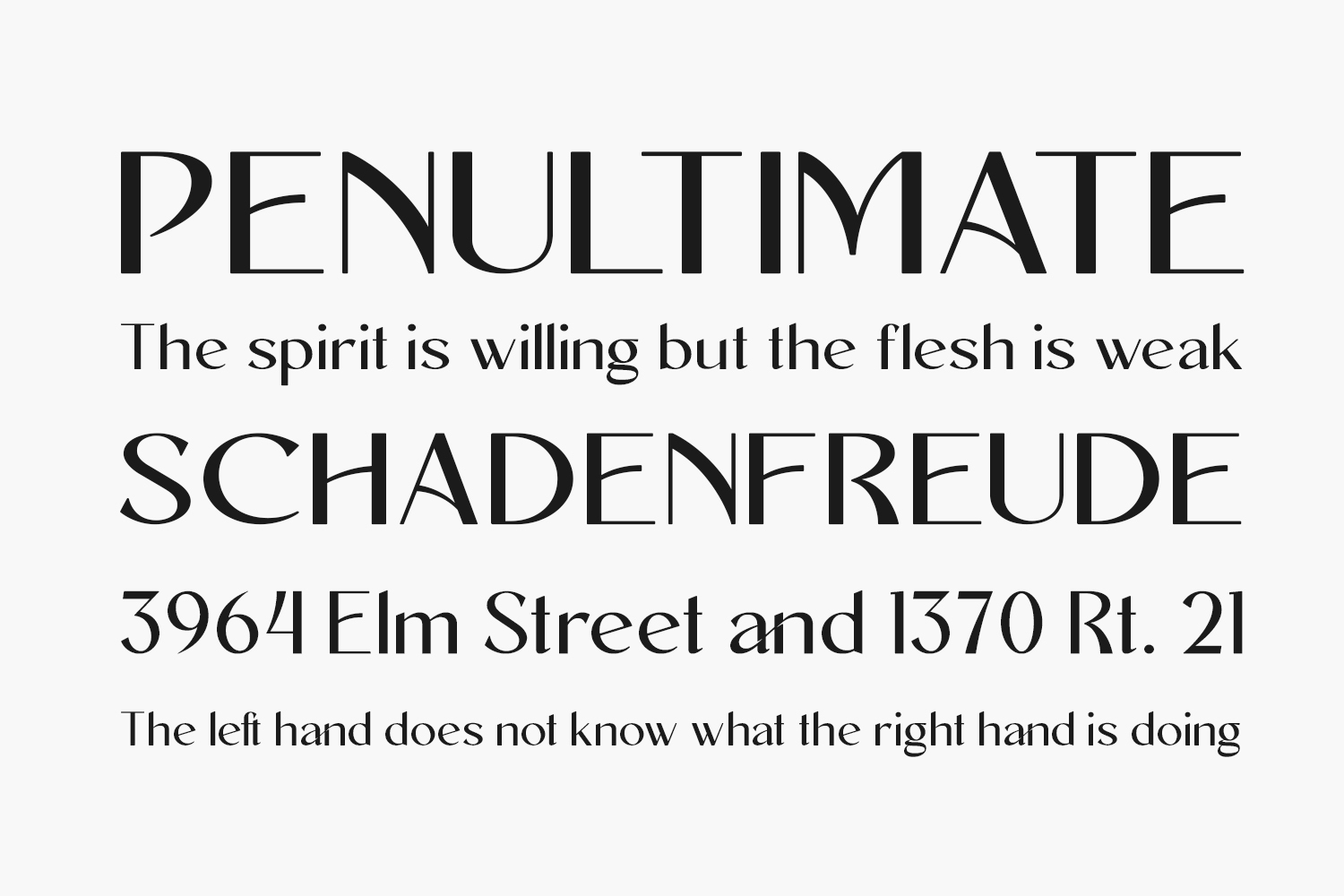
New Machiato Free Font is the epitome of style and modernity. This serif font boasts a unique and contemporary look, making it the perfect choice for creating elegant and luxurious logos, crafting captivating book or movie titles, defining fashion brand identities, gracing the pages of magazines, enhancing clothing designs, adding finesse to your lettering, and imparting depth to your quotes. Embrace the allure of New Machiato and elevate your projects to new heights. New Machiato Free Font is free for personal use only. Please purchase the full version for commercial use.